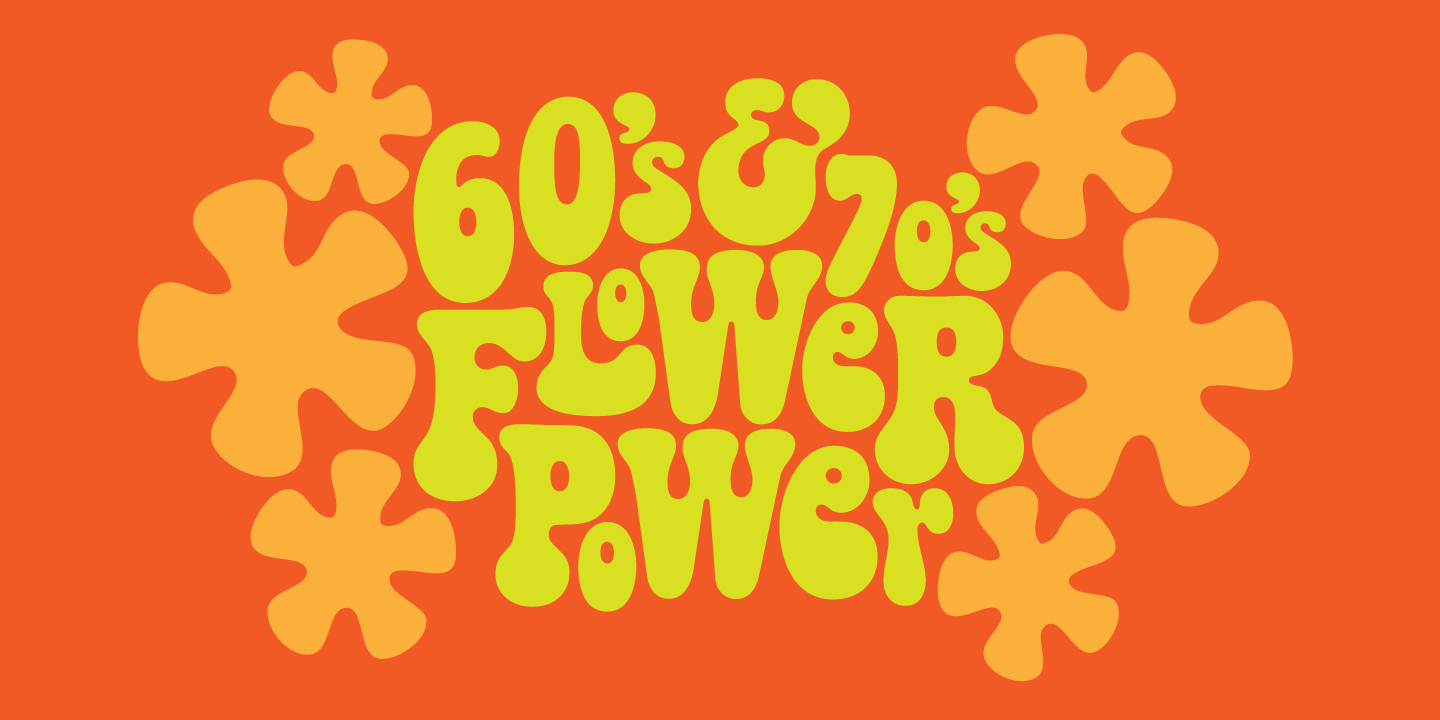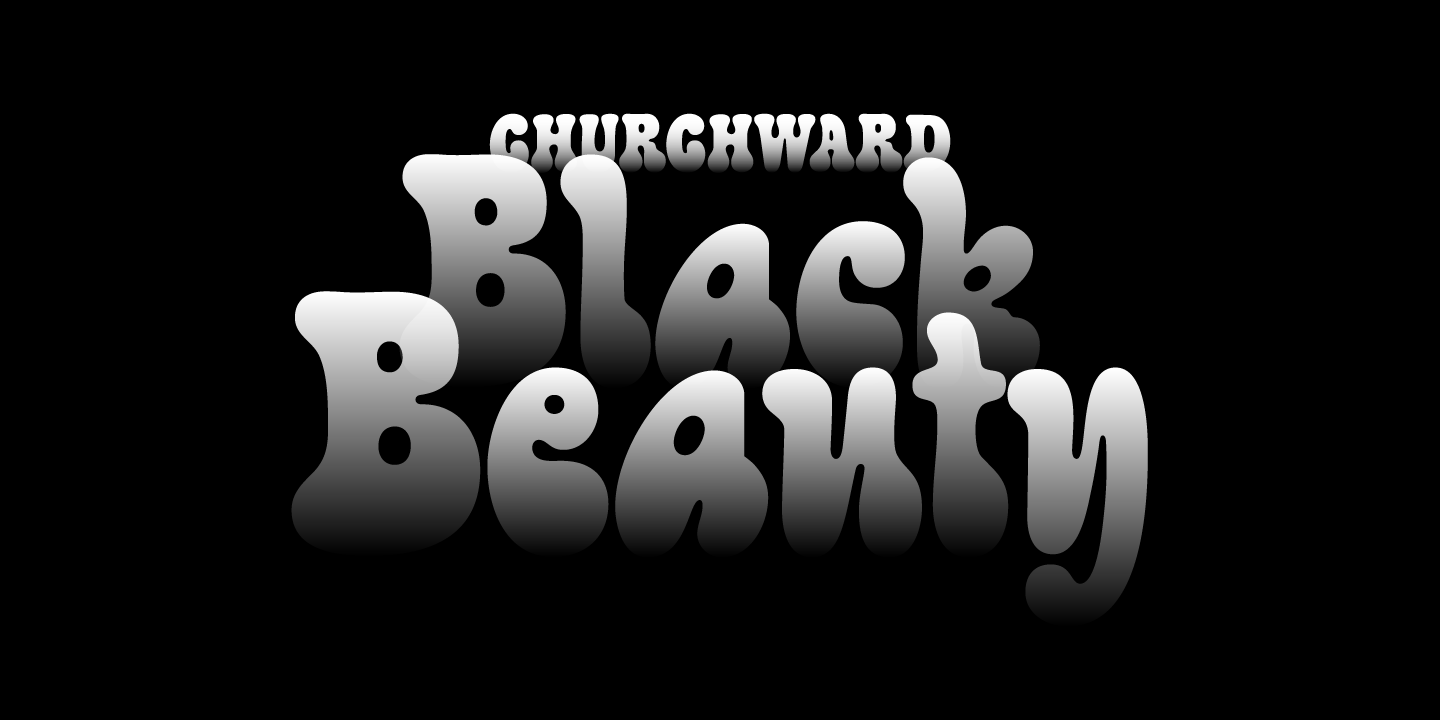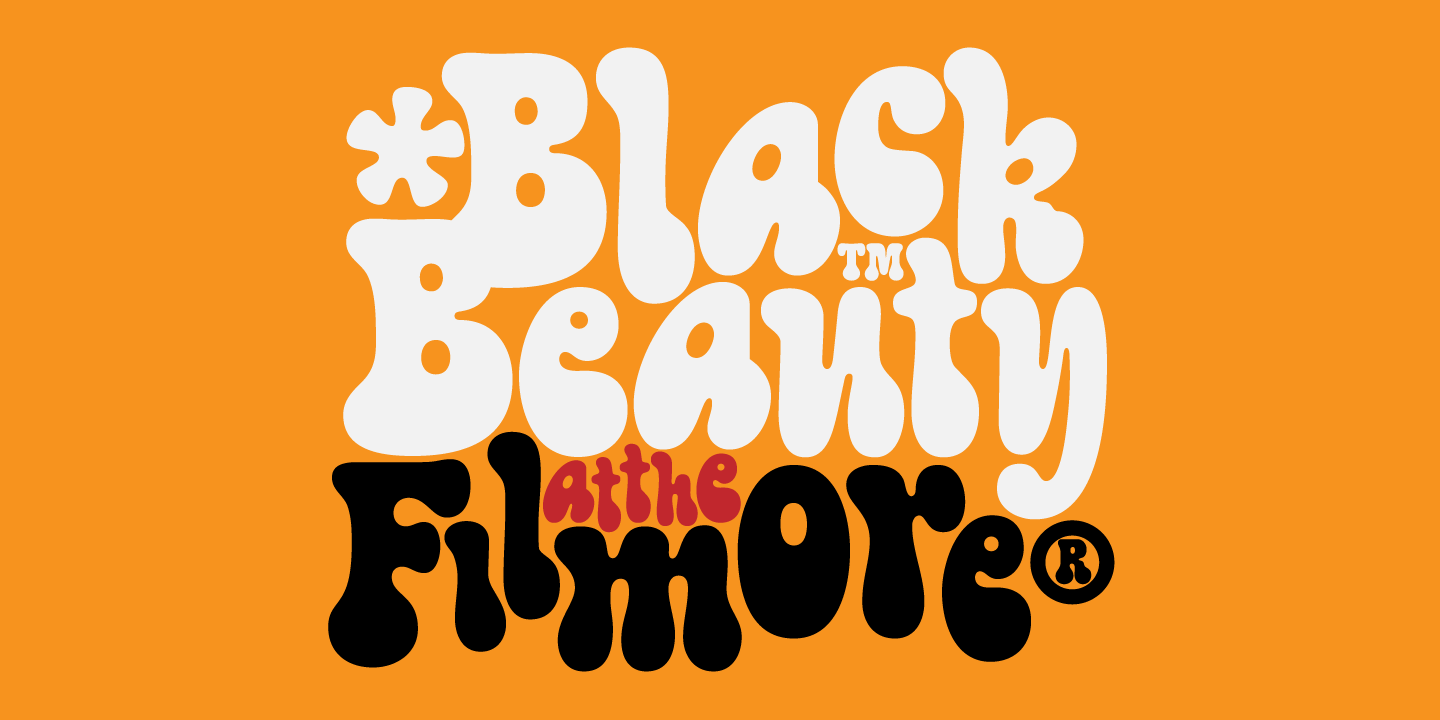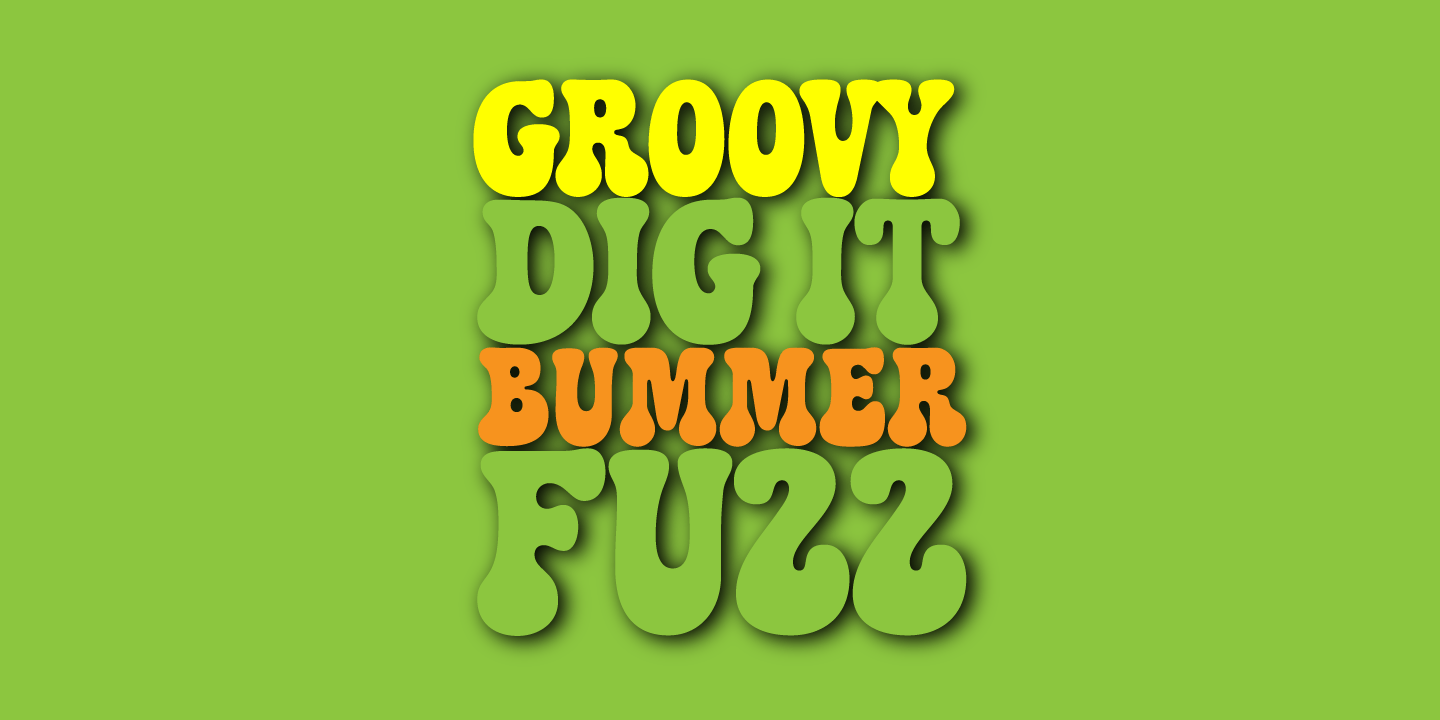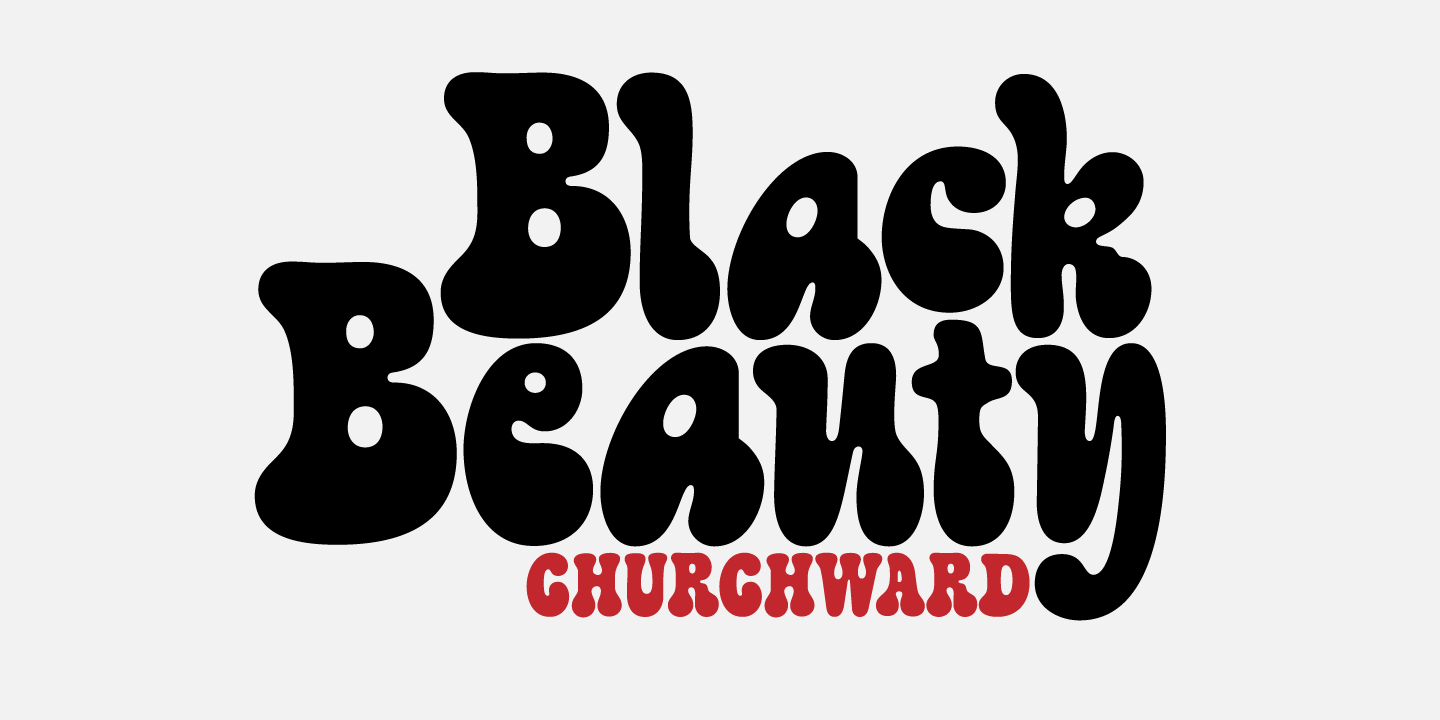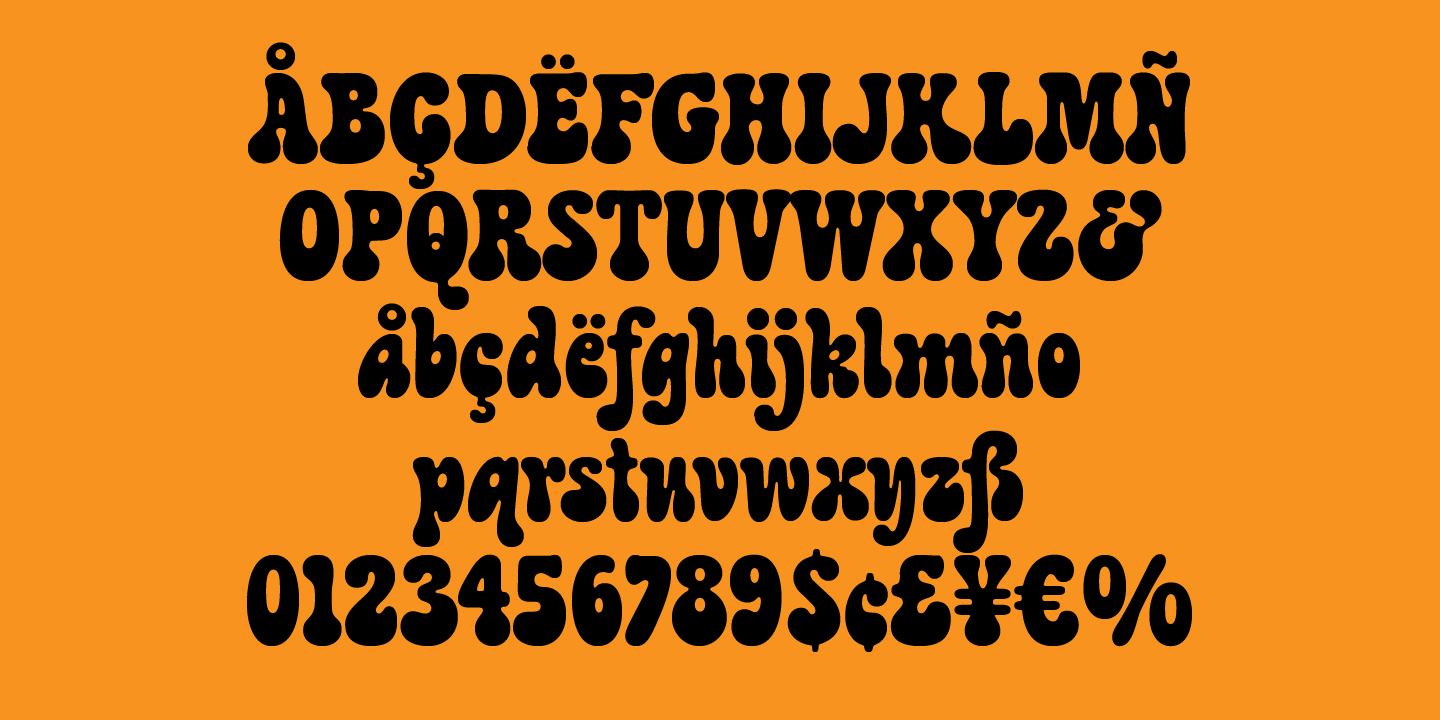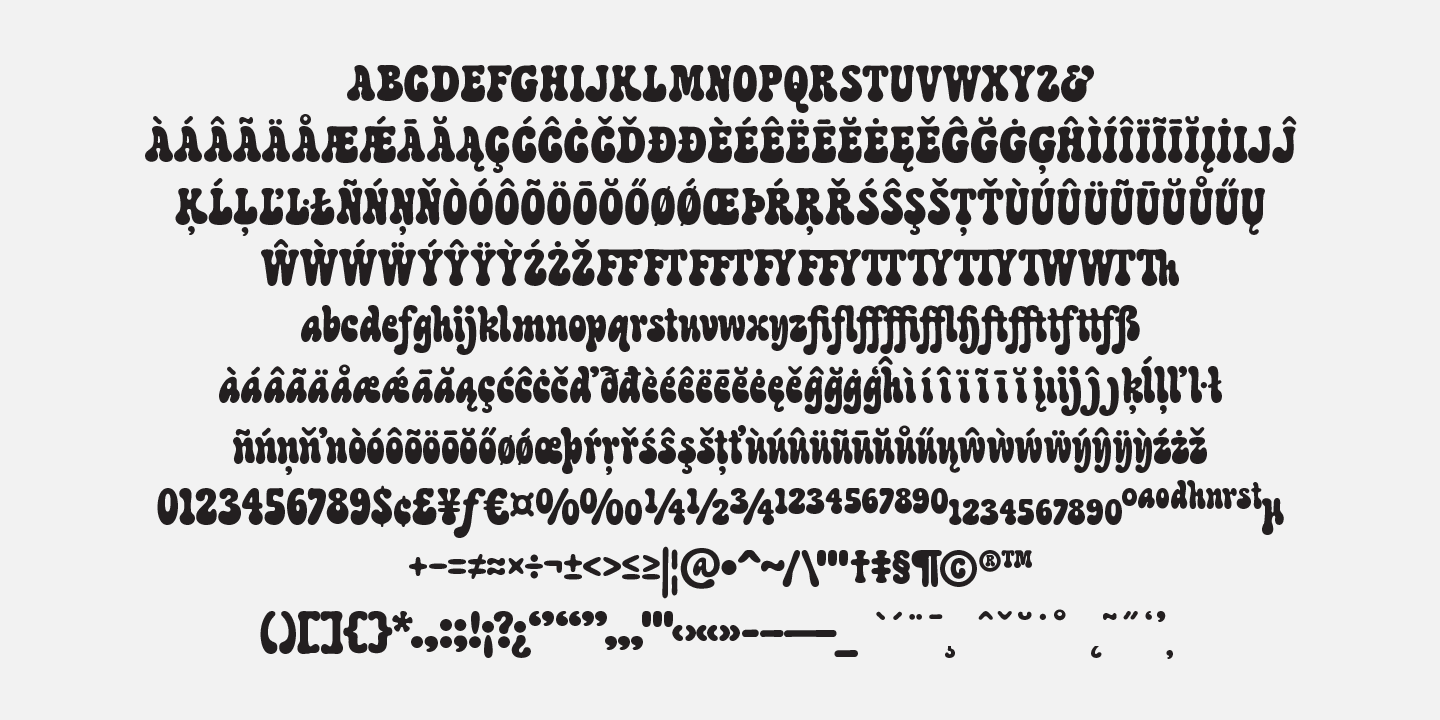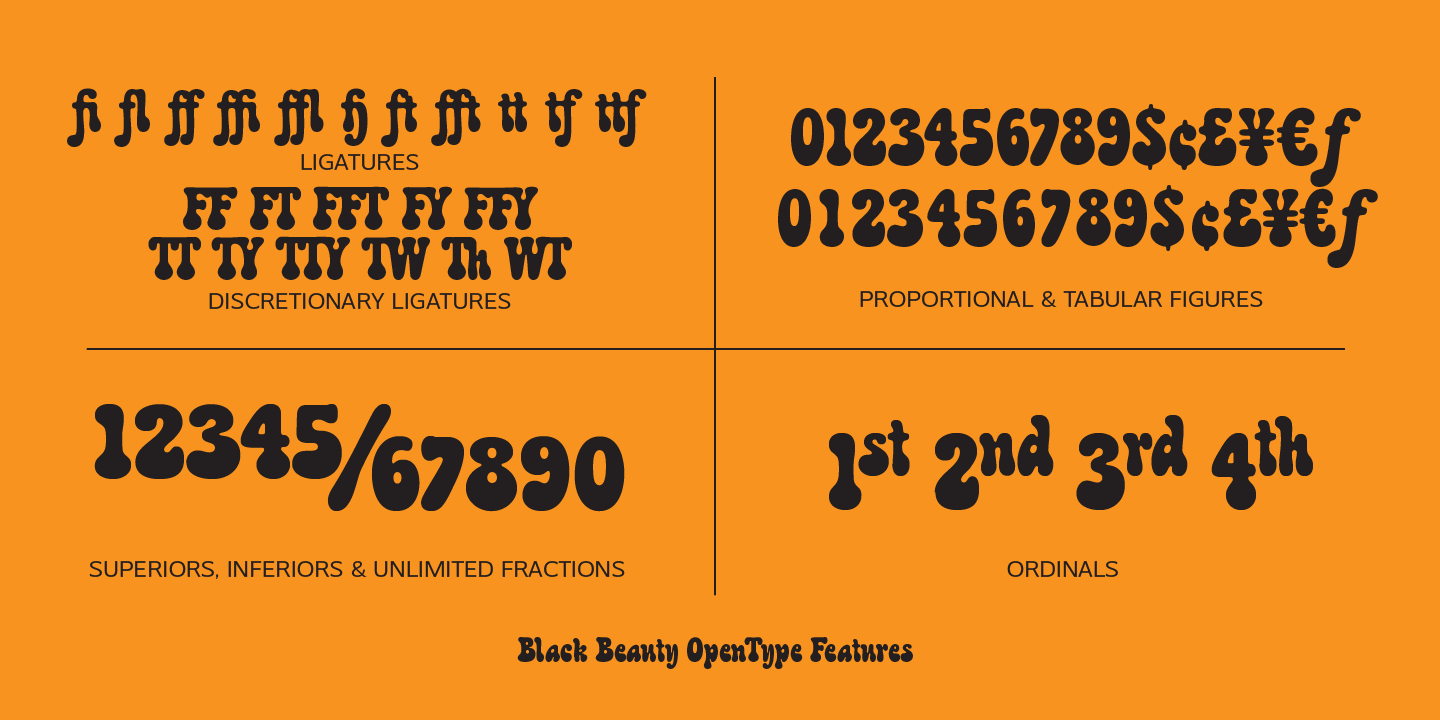
Churchward Black Beauty
Font Family by BluHead Studio
Churchward Black Beauty was designed by Joseph Churchward. It is a classic 70's, hippy-era freeform lettering exercise that perfectly captures the graphic aesthetic of the time. Great for headlines, vintage poster recreation, and cutting loose that 60's - 70's vibe that always imparts a time of free love and soft revolution. Black Beauty is packed with OpenType features that support proportional and tabular figures (yes, you'll want to set spreadsheets with Black Beauty!), superiors, inferiors and unlimited fractions, ordinals, contextual alternates, ligatures and discretionary ligatures, and it's expanded character set supports many Western European languages.